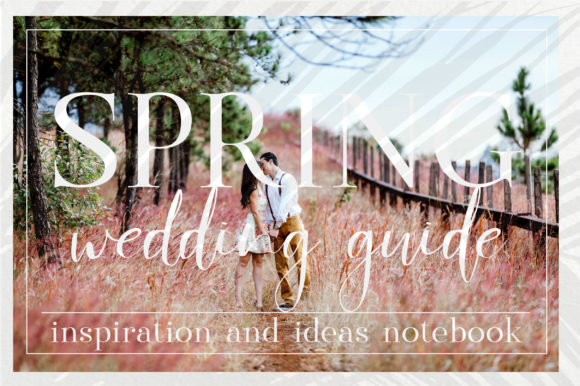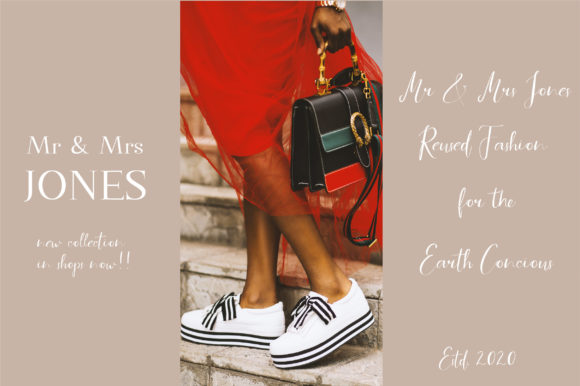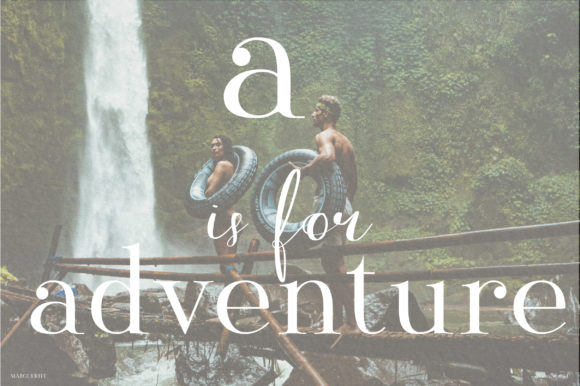
Introduction to Marguerite Duo Font
As designers, we’ve all been there – staring at a blank page, trying to decide on the perfect font to elevate our creative project. The right typography can make all the difference in setting the tone and atmosphere of our work. For me, it’s the moment when everything falls into place, and the words start flowing. But, finding that perfect font can be a daunting task, especially when you’re working on a tight deadline.
Enter the Marguerite Duo Font, a stunning script and elegant serif combination that’s sure to take your design to the next level. With its gorgeous serifs and high-quality design, this font is a valuable resource for any designer looking to add an editorial feel to their work. Whether you’re working on a magazine, book, or website, the Marguerite Duo Font is the perfect choice.
Key Features of Marguerite Duo Font
- Unique, hand-drawn font duo with a romantic and elegant feel, ideal for wedding invitations, quotes, and other special occasions.
- Includes two font styles: Marguerite Script and Marguerite Duo, with a transparent background for versatility.
- Each font file includes 500+ glyphs, with support for Latin, Cyrillic, and Greek alphabets.
Honest Review: Marguerite Duo Font
I recently came across the Marguerite Duo Font, and I’m excited to share my thoughts on this design resource. As a designer, I’m always on the lookout for high-quality fonts to elevate my creative projects.
The Marguerite Duo Font is a beautifully designed font with a mix of elegant and playful elements. It’s perfect for projects that require a touch of sophistication and whimsy. One of the standout features of this font is its versatility – it works well in both digital and print applications.
Here are some of the things that work well:
- High-quality design: The Marguerite Duo Font is meticulously crafted, making it a great addition to any design project.
- Transparent background: This feature allows for seamless integration with various design elements.
However, I did notice a few limitations:
- Limited character set: The font only includes a limited set of characters, which may not be suitable for complex design projects.
- Not ideal for small text: The font’s design may not be the best choice for small text, as the letters can become difficult to read.
Overall, I’m impressed with the Marguerite Duo Font. Its unique design and high-quality construction make it a great addition to any design library. While it may have some limitations, it’s definitely worth considering for your next creative project.
Tips for Getting the Most Out of Marguerite Duo Font
To get the most out of the Marguerite Duo Font, use it with a transparent background to create a seamless design. You can also experiment with different font sizes and styles to add visual interest to your project.
Common Use Cases for Marguerite Duo Font
The Marguerite Duo Font is perfect for a variety of creative projects, including wedding invitations, baby shower invitations, and social media graphics. Its elegant and sophisticated design makes it an excellent choice for any project that requires a touch of sophistication and style.